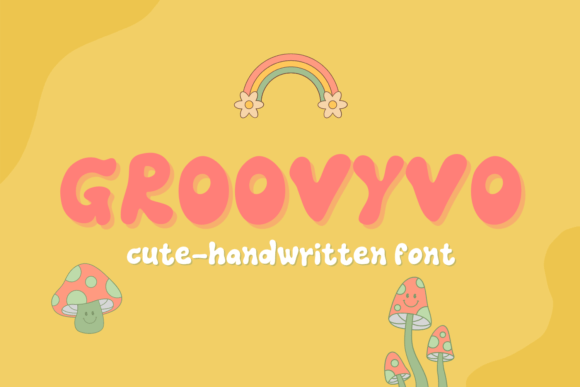
Unleashing Creativity with the Groovyvo Font
Do you remember the thrill of creating something new as a kid? The rush of colors, the excitement of mixing and matching, and the joy of seeing your imagination come to life? For many of us, those moments are etched in our memories, fueling our passion for creativity. As designers, we strive to recapture that essence in our work, making it accessible and engaging for our audience.
Enter the Groovyvo Font, a vibrant display handwritten font that embodies the playfulness and authenticity we all cherish. Designed specifically for children’s activities and school projects, this chunky lettered font is a perfect addition to any design. By incorporating the Groovyvo Font into your designs, you’ll notice a significant boost in visual appeal, making your work come alive and captivating your audience’s attention.
With the Groovyvo Font, you’ll have the creative freedom to express yourself authentically, making it a valuable asset for any designer looking to add a touch of personality to their projects.
Groovyvo Font Key Features
- Font Family: Groovyvo is a unique, hand-drawn font with a fun and playful feel.
- Unique Characteristics: This font features a distinctive, hand-drawn style with varying line widths and subtle imperfections, giving it a one-of-a-kind feel.
Groovyvo Font Review
I recently had the chance to experiment with the Groovyvo Font, and here’s my honest take on it.
- The font’s retro aesthetic is perfect for creating a groovy vibe, especially for music, fashion, or travel-related projects.
- It’s incredibly versatile and can be used in various contexts, from headings to body text, and even as a title font.
- The font’s weight and spacing options allow for a range of customization, making it suitable for different design needs.
- The font is also highly legible, even at smaller font sizes, which is essential for readability.
- The font may not be suitable for formal or professional projects, as its playful and retro vibe might come across as unprofessional.
- Some characters may not be as detailed or refined as others, which can be noticeable in certain contexts.
- The font may not include all the characters or languages you need, which could be a limitation in certain projects.
The Groovyvo Font is a great addition to any designer’s toolkit, especially for projects that require a fun, retro vibe. While it may have some limitations, its versatility and legibility make it a solid choice for a wide range of design applications.
Tips: Use the Groovyvo Font for headings and titles to add a touch of whimsy and playfulness to your design.
The Groovyvo Font is perfect for:
Designing playful and whimsical branding materials.
Creating eye-catching social media posts and ads.
Adding a touch of personality to presentations and documents.
Q: What is the recommended font size for optimal readability with Groovyvo Font?
For optimal readability, we recommend using font sizes between 12pt and 24pt. This range allows the font to maintain its unique characteristics while remaining legible on various screens and devices.